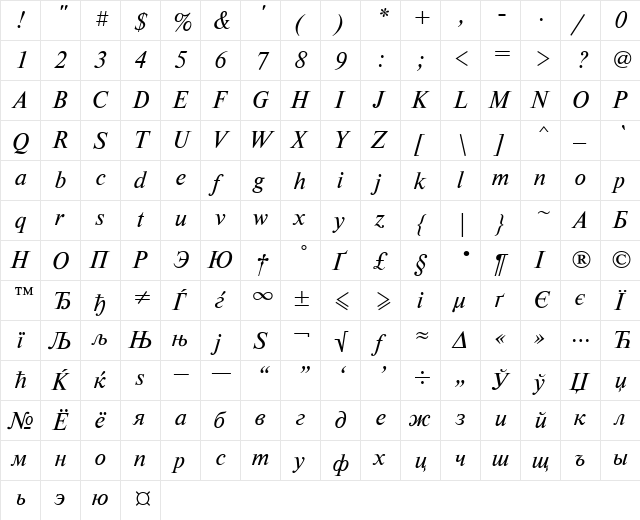
NewtonMACCTT Italic
Design Context for NewtonMACCTT Typeface
NewtonMACCTT is a composed and adaptable typeface that performs quietly and consistently across a wide range of design contexts. The slanted form adds forward momentum and visual energy.
Pro Tip: Use NewtonMACCTT for emphasis, pull quotes, and subheadings where its slanted energy can add rhythm to the layout.